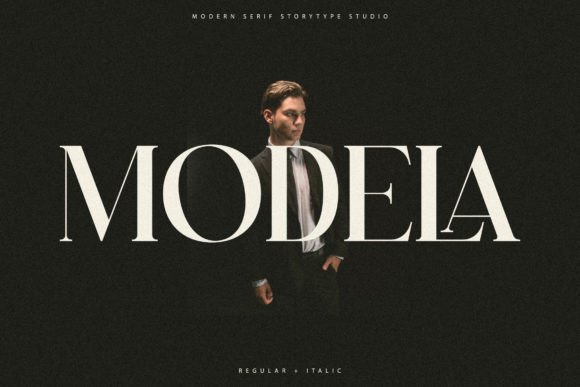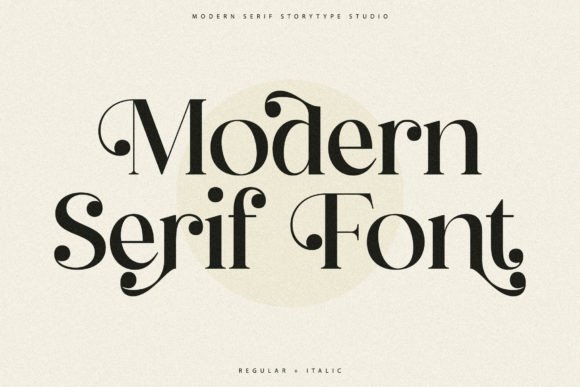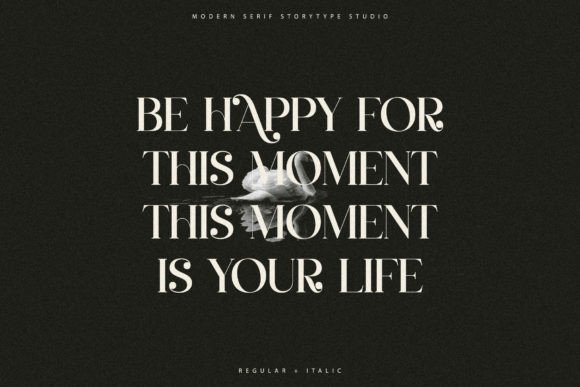
Introduction to Qelrage Font
Have you ever been scrolling through your favorite design inspiration board, and you come across a stunning logo or typography that leaves you wondering how to achieve that level of elegance and sophistication in your own creative project? For many designers, this is a familiar experience, and it’s what drives us to continuously seek out new and exciting design resources to elevate our work. If you’re looking for a font that can help you create a lasting impression, you’re in luck because we’re about to introduce you to the Qelrage Font.
This beautiful serif font is a game-changer for designers, offering a unique blend of modern and classic styles that can add a touch of luxury and sophistication to any design project. Whether you’re working on a high-end fashion brand, a luxury magazine, or a book title, the Qelrage Font is sure to make a statement.
Key Features of Qelrage Font
- Features a unique, modern design aesthetic that can add a touch of sophistication to any creative project.
Honest Review: Qelrage Font
As a designer, I’m always on the lookout for high-quality design resources to elevate my creative projects. Recently, I stumbled upon the Qelrage Font, and I’m excited to share my honest review with you.
What works well: ✨ The Qelrage Font is a beautifully crafted font that exudes sophistication and elegance. Its sleek lines and modern design make it perfect for a wide range of creative projects, from corporate branding to editorial design. The font is also available for free download, which is a huge plus for designers on a budget.
- High quality: The font is professionally designed and looks amazing in print or digital format.
Limitations: ⚠️ While the Qelrage Font is a great addition to any designer’s toolkit, I found it to be a bit limited in terms of font styles and weights. If you’re looking for a more extensive font family, you may want to consider other options.
Overall, I’m impressed with the Qelrage Font and would highly recommend it to designers looking for a high-quality, free design resource. While it may have some limitations, its strengths far outweigh its weaknesses.
Tips for Getting the Most Out of Qelrage Font
For a high-quality design, use the Qelrage Font with a transparent background. This will allow the text to stand out against any background. You can also experiment with different font sizes and styles to create a visually appealing design.
The Qelrage Font is suitable for various design projects, including business cards, brochures, and social media graphics. Its high-quality design makes it an ideal choice for creative projects that require a professional touch.